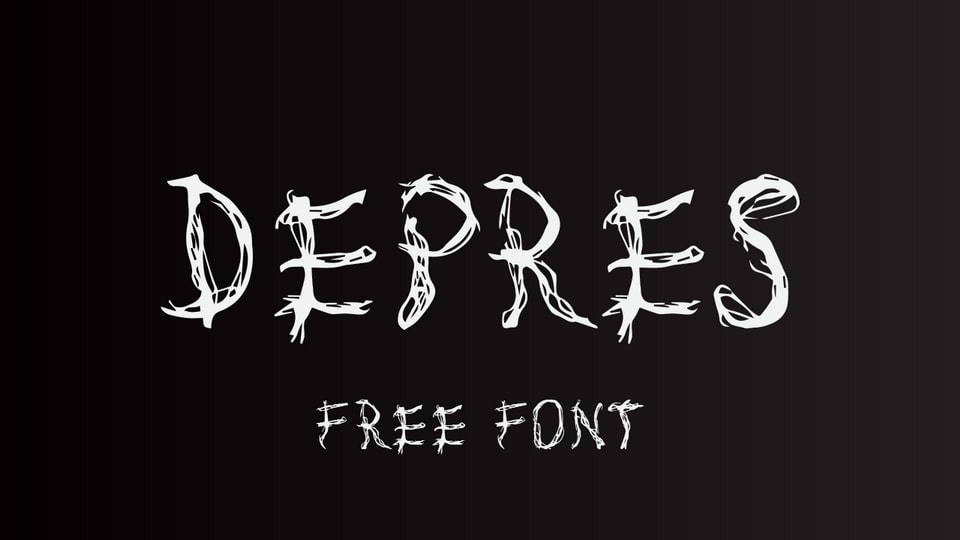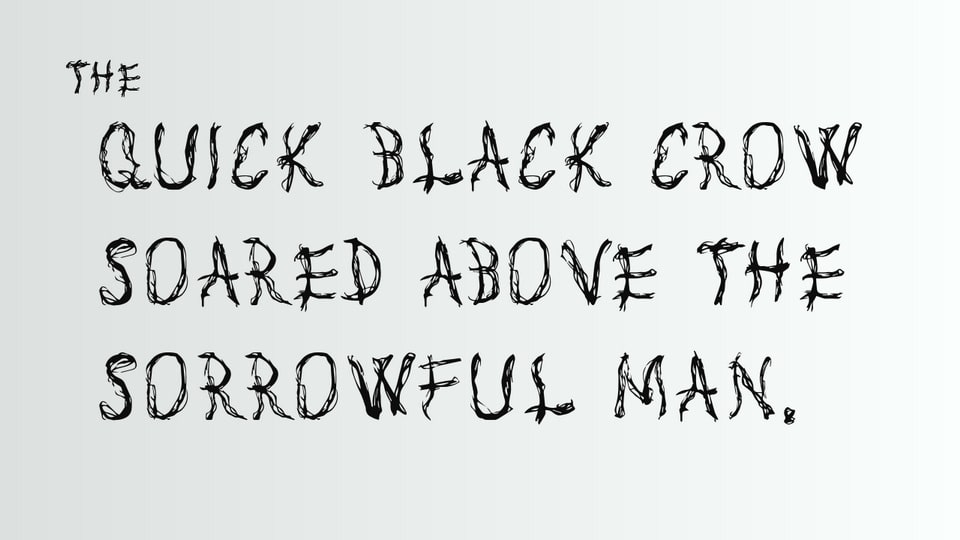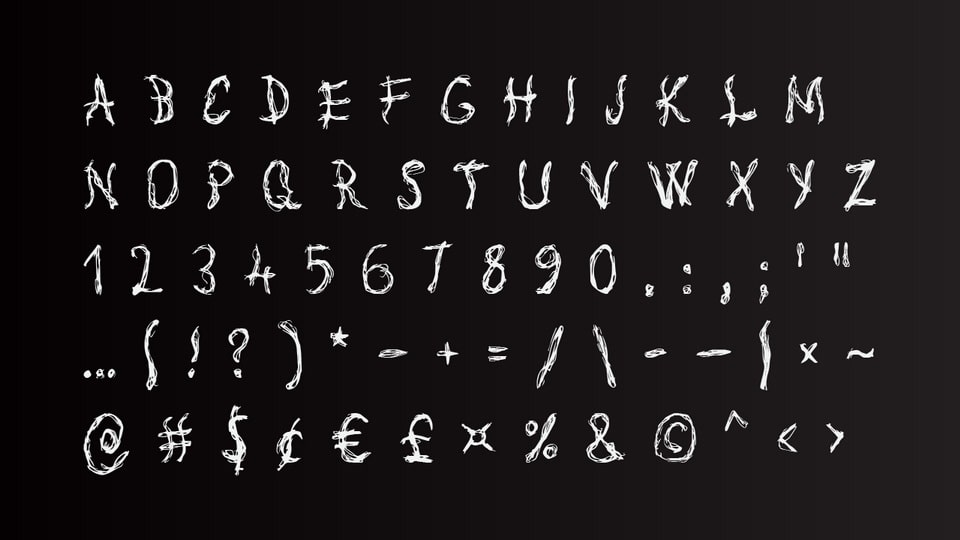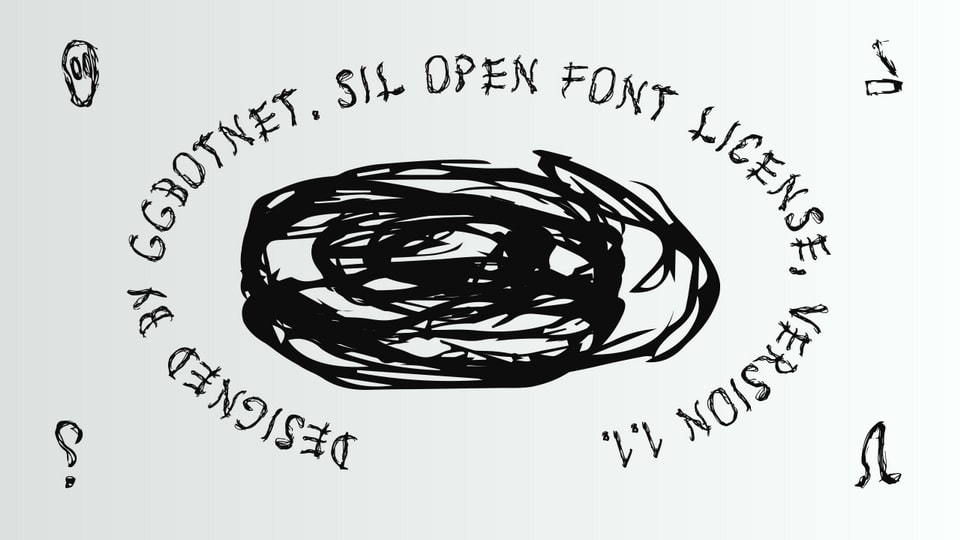
Depres
Depres is a decorative display font with rough, scratch-built uppercase forms and an uneasy hand-drawn rhythm. The letters are tall, narrow, and irregular, with thin broken strokes, thorn-like cuts, and overlapping sketch marks that create a distressed horror texture. Its spacing feels loose and uneven, matching the jagged construction rather than a polished text face. Readability is strongest at large sizes, where the fragmented outlines and sharp interior gaps remain clear. The style suits horror posters, dark book covers, Halloween graphics, metal or punk artwork, and titles needing a raw, anxious tone.